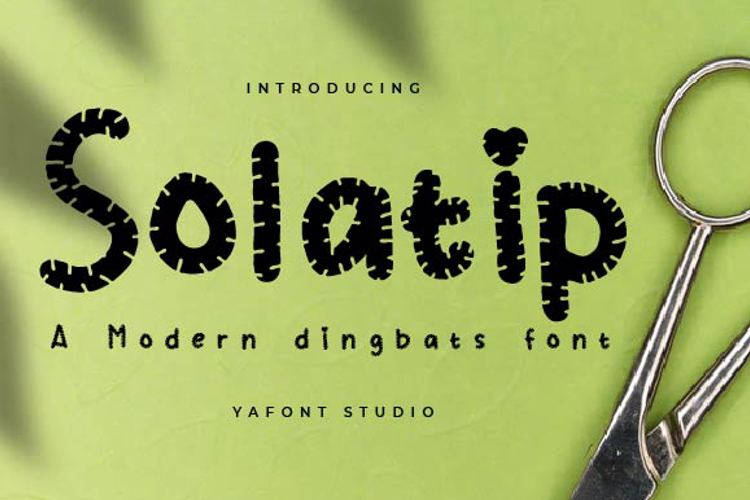
Solatip Font
Solatip is an incredibly unique and interesting display font. Quirky and cute, this font will be the best choice for creating original logos, prints and much more!